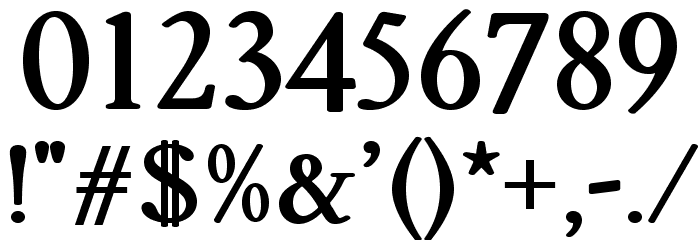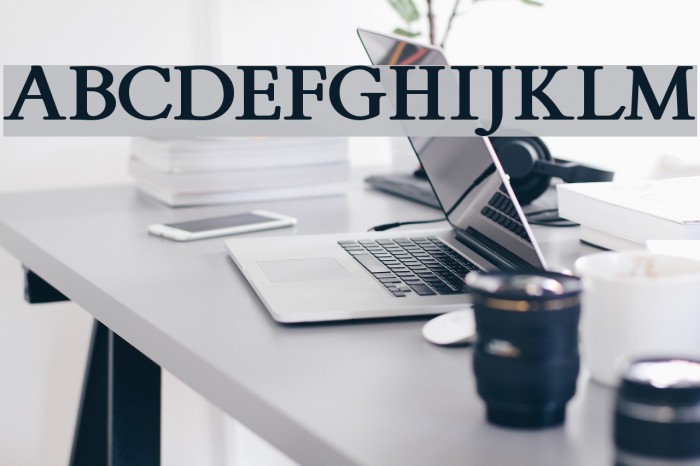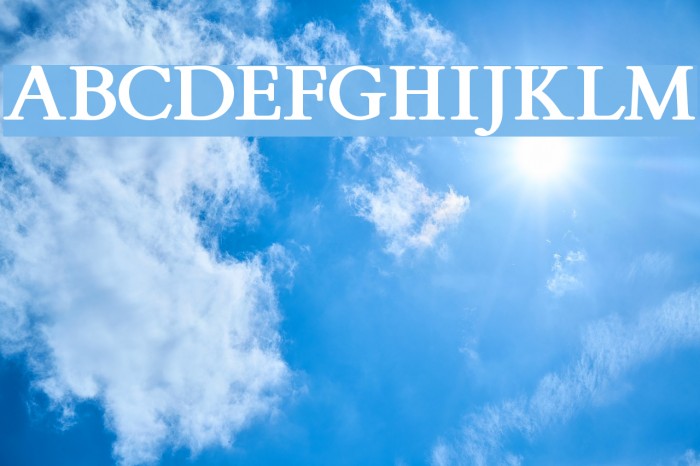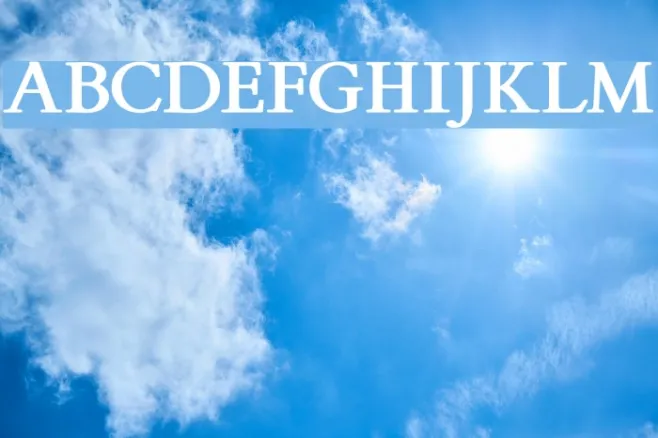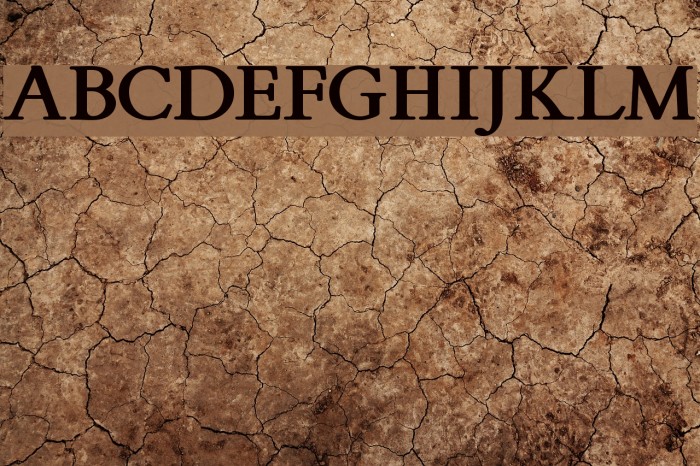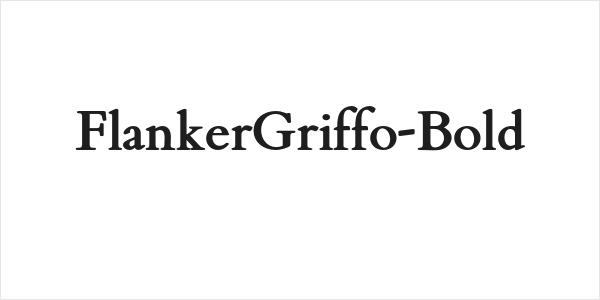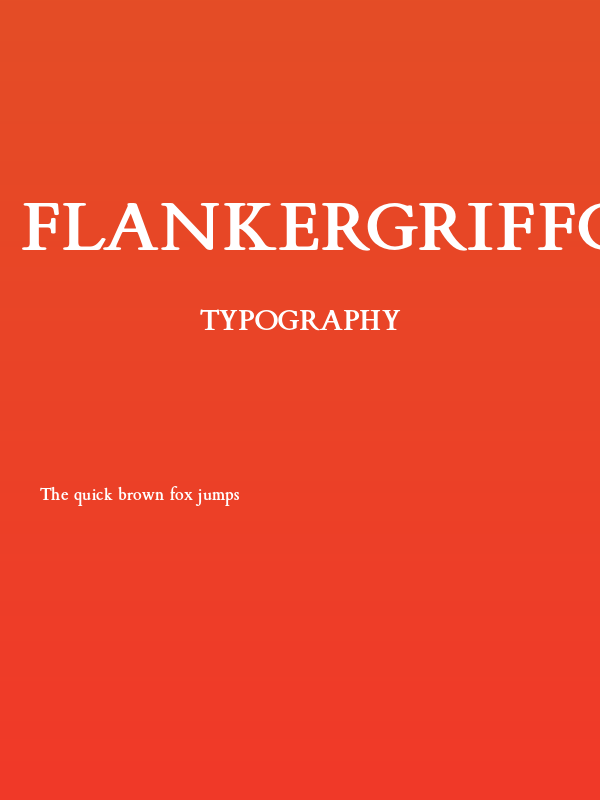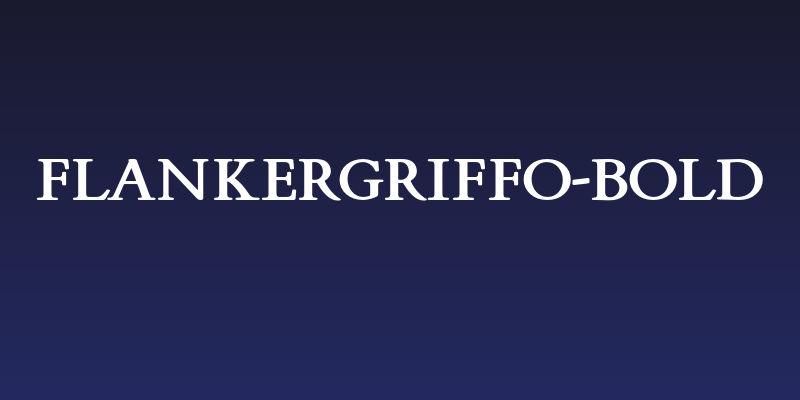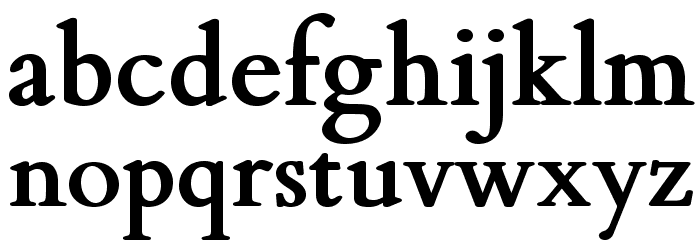
FlankerGriffo-Bold Font
FlankerGriffo-Bold Description
This font exhibits a classic serif style with strong, bold strokes and elegant curves. The uppercase letters are well-proportioned, featuring prominent serifs that add a touch of sophistication. The lowercase characters maintain a consistent design, with smooth transitions and a slightly rounded appearance that enhances readability. Numbers are clear and distinct, with a traditional look that complements the overall aesthetic. The special characters are crafted with attention to detail, ensuring they blend seamlessly with the rest of the font. This typeface is ideal for projects that require a timeless and authoritative presence.
| Use Case | Headlines, Logos, Editorial design |
| Proposed Projects | Ideal for book covers, editorial design, branding, and formal invitations. |